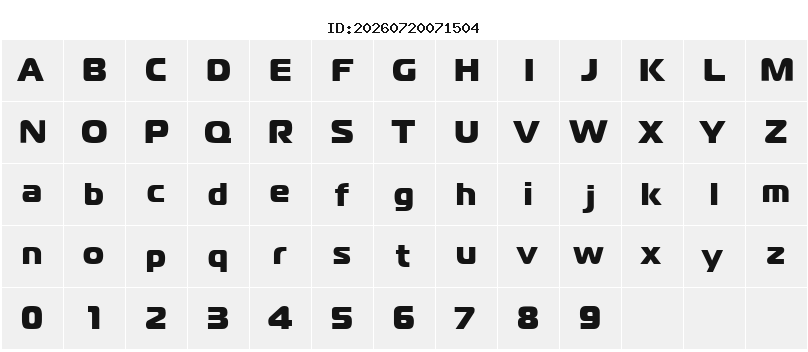
ft40 Preview
• Font Name: ft40
• Font Style: Roman
• Full Font Name: ft40 Roman
About ft40.ttf
ft40.ttf is a modern, elegant sans-serif font designed for ultimate readability and visual harmony. Perfect for branding, headlines, web design, and print materials.